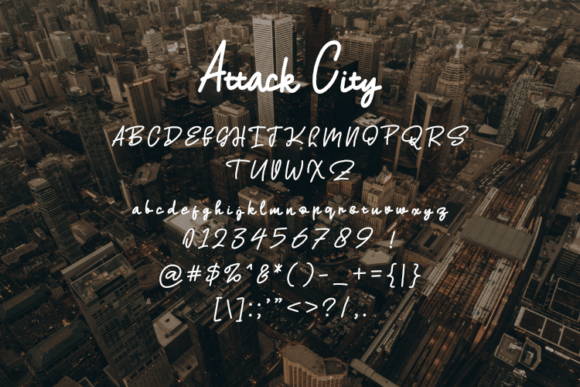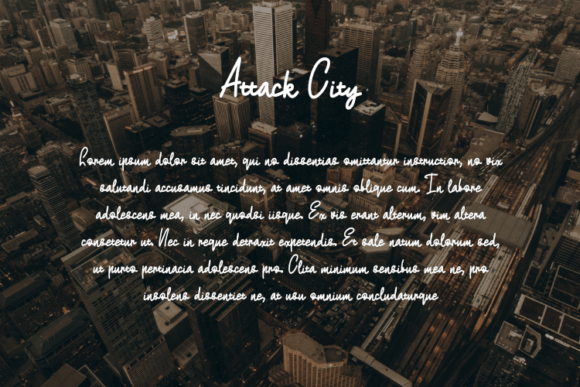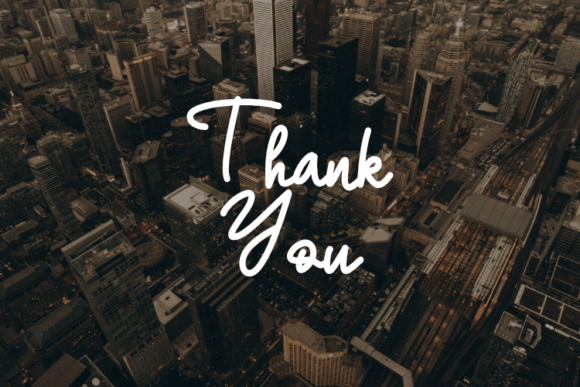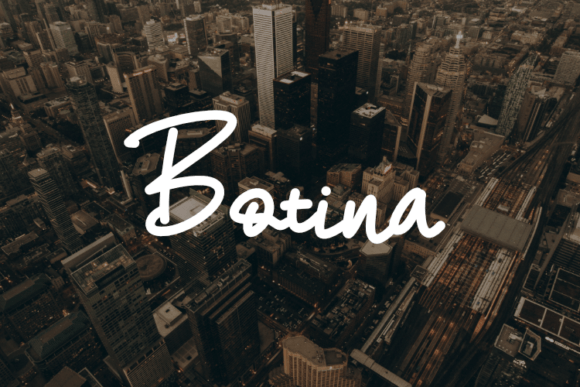
Meet Your New Design BFF: Botina Font
Remember that moment when you finally nailed the perfect design concept for your brand? The one that makes you feel like a creative genius? We’ve all been there, and it’s an incredible feeling. But what if we told you that there’s a secret tool that can take your designs to the next level? Enter the Botina Font, a game-changing font designed specifically for the creatives who bring style and personality to the world.
With the Botina Font, you’ll have the freedom to express yourself in a way that’s uniquely yours. Whether you’re designing clothing, creating t-shirt art, or working on any other project that requires a touch of elegance, this font is your new best friend. Its versatility and compatibility with various software make it a valuable addition to any designer’s toolkit, giving you the power to turn your vision into reality.
Key Features of Botina Font
- Unique Characteristics: Botina Font features a unique blend of modern and vintage elements, with a distinctive aesthetic that sets it apart from other fonts.
- Legibility and Readability: The font is designed to be highly legible and readable, even at smaller font sizes, making it an excellent choice for body text and other large blocks of text.
Designer Review: Botina Font
Overall, I was excited to dive into Botina Font and explore its capabilities. Here are my honest thoughts on what works well and what doesn’t.
- Unique Character**: Botina Font has a distinctive personality that sets it apart from other fonts.
- Good for Titles**: Its bold and playful nature makes it perfect for use in titles and headings.
- Clean Lines**: The font’s clean lines and minimal ornamentation make it easy on the eyes.
- Limited Readability**: While Botina Font is great for titles, its readability decreases when used for large blocks of text.
- Lack of Versatility**: The font’s unique style may not be suitable for all types of content or audiences.
- Not Ideal for Body Text**: The font’s boldness can make it difficult to read when used for extended periods.
Overall, Botina Font is a solid choice for designers looking for a bold and playful font. However, its limitations should be taken into consideration when deciding whether to use it for your project.